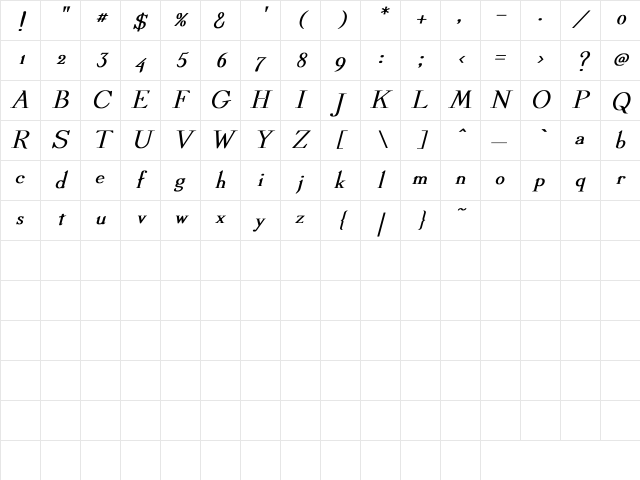
Dickens Bold Italic Bold Italic
Design Context for Dickens Bold Italic
Dickens Bold Italic is a composed and adaptable typeface that performs quietly and consistently across a wide range of design contexts. The slanted form adds forward momentum and visual energy. Its bold stroke weight gives it real presence on the page.